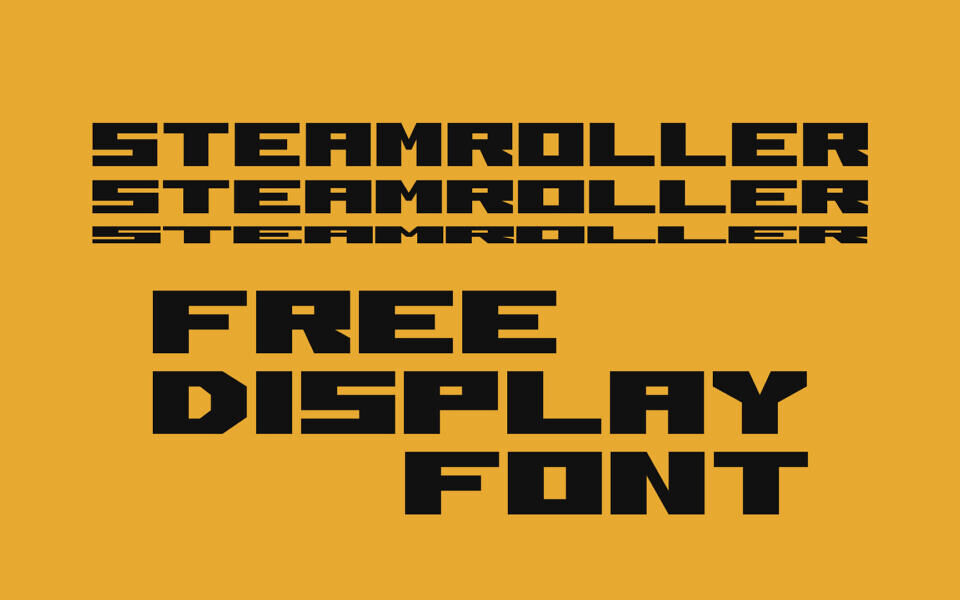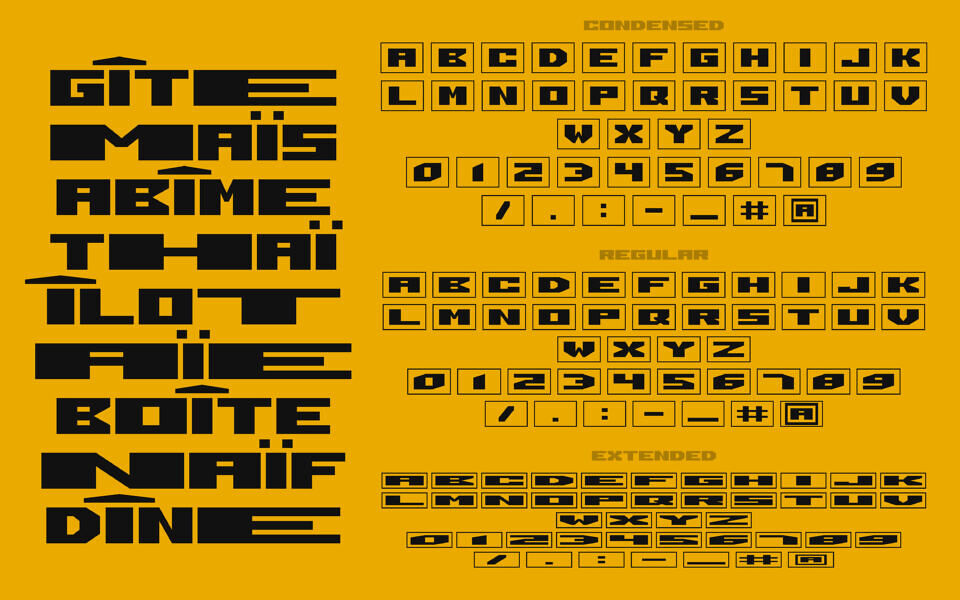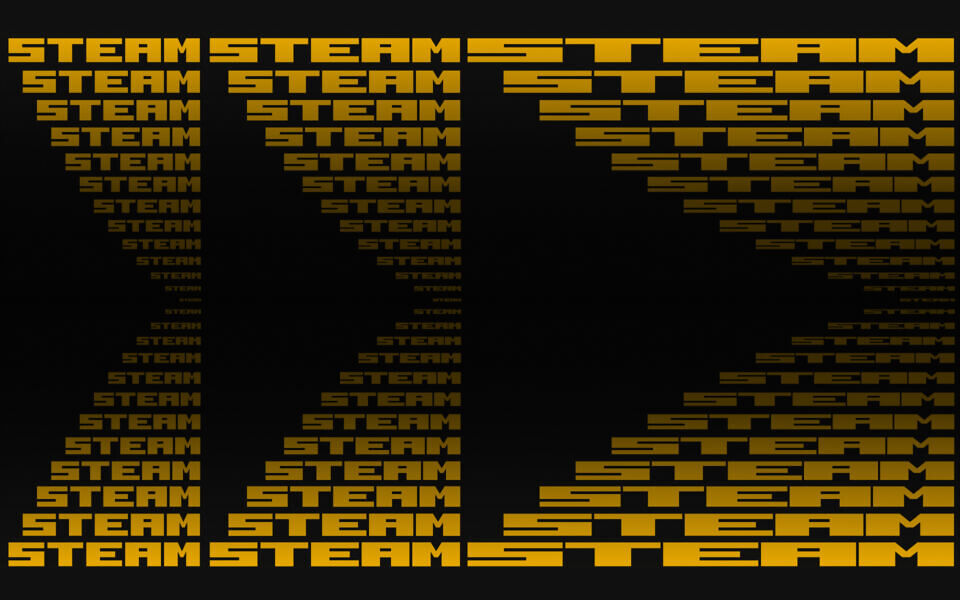
Steamroller Display is an Ultra Black, Extended display typeface that explores the concept of mechanical compression. Rejecting all organic qualities in favor of strict mathematical rigor, it replaces traditional curves with chamfers and massive vertical stems anchored to the ground.
With its counterforms reduced to a minimum and its impenetrable block-like structure, it is designed to saturate space and deliver immediate visual impact.